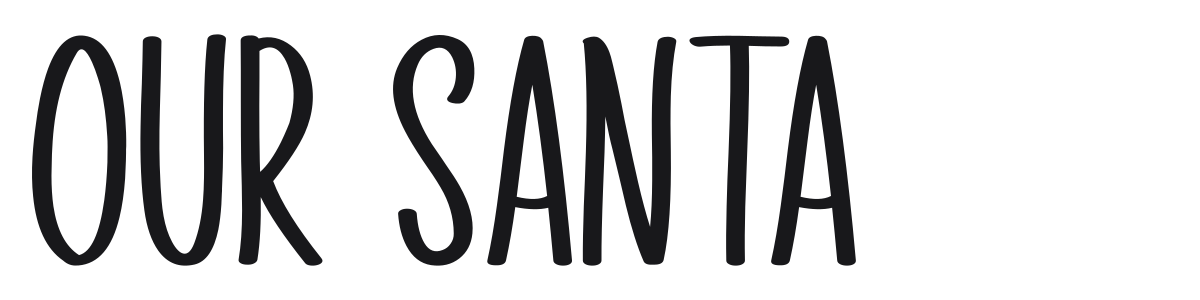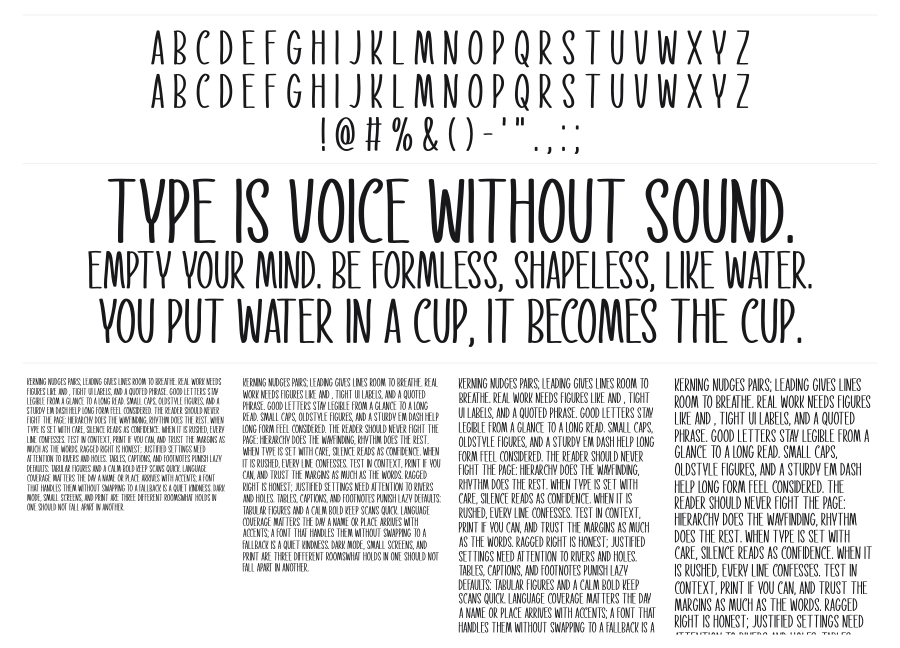
Our Santa
Our Santa is a hand-drawn display sans with tall, slightly irregular characters that feel like careful hand lettering. The subtle stroke wobble and organic inconsistencies give it warmth without tipping into chaos. It suits holiday branding, seasonal packaging, and any project that needs a personal, crafted touch.